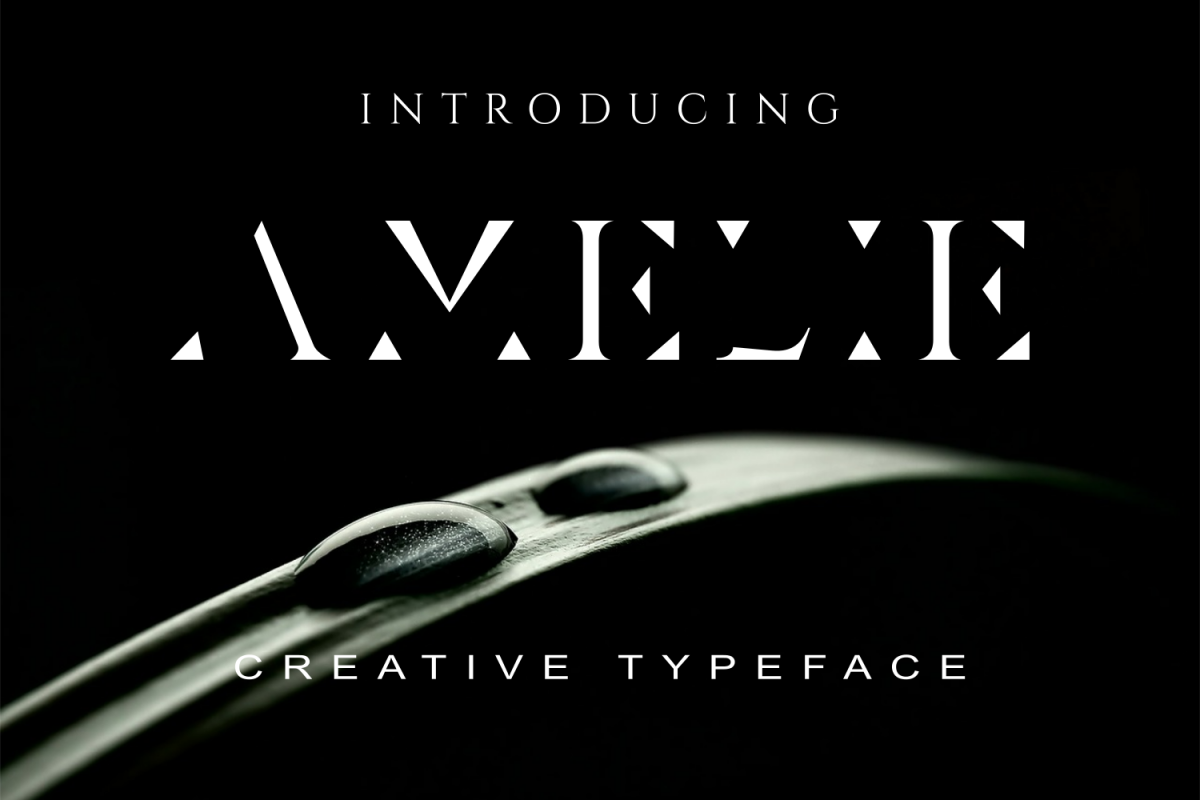
Amelie is an amazing and creative serif typeface, perfect for whatever stunning project you are working on, such as graphic designs, logos, posters, flyer, packaging, branding, t-shirts.